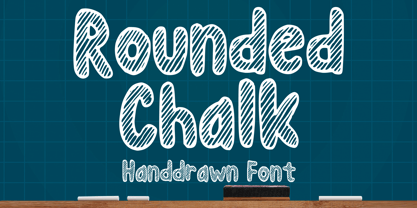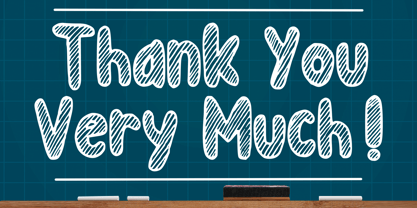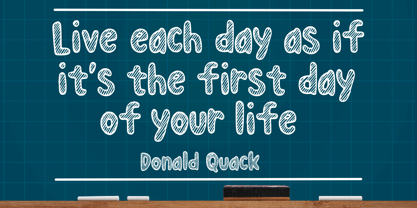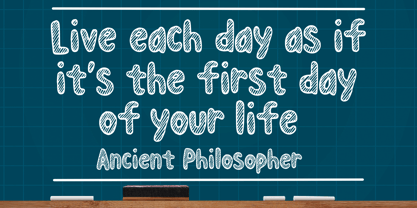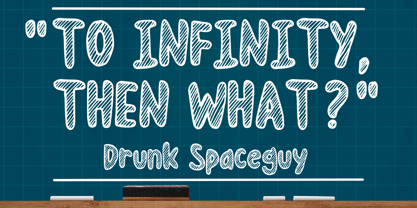
Rounded Chalk
by Mvmet
The Rounded Chalk Font Family was designed by Gabriel Valentinus and published by Mvmet. Rounded Chalk contains 1 styles.
Rounded Chalk is a fun and playful handwritten, chalk textured font that you can use for all chalkboard quotes or teaching material! Its authentic look will add a personal and realistic feel to your designs. It works great for creating cool designs that scream for attention. It’s ideal for anything ranging from t-shirts, book designs, restaurant menus, blog writing, and greeting cards to stickers, or anything that needs a casual touch. Fall in love with its incredibly cool style, and use it to create lovely designs!
Designers: Gabriel Valentinus
Publisher: Mvmet
Foundry: Mvmet
Design Owner: Mvmet
Rounded Chalk